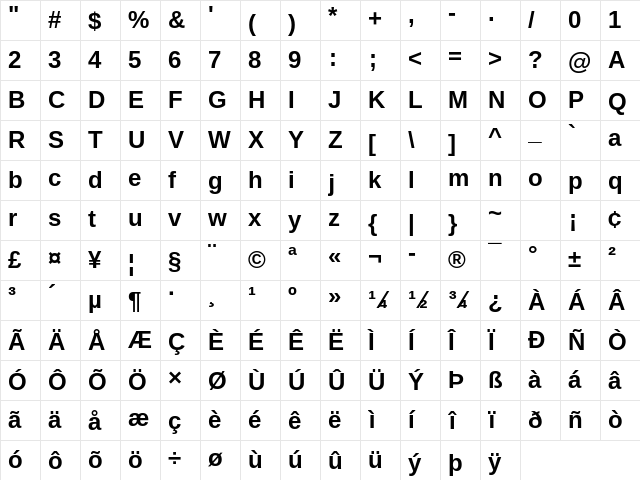
LiterationSans NF Bold
Foundry: Ascender Corporation
Designer: Steve Matteson
Design Context for LiterationSans NF
LiterationSans NF is a composed and adaptable typeface that performs quietly and consistently across a wide range of design contexts. Its bold stroke weight gives it real presence on the page.
Pro Tip: Use LiterationSans NF in both headline and body roles to test its range before committing to a single application.